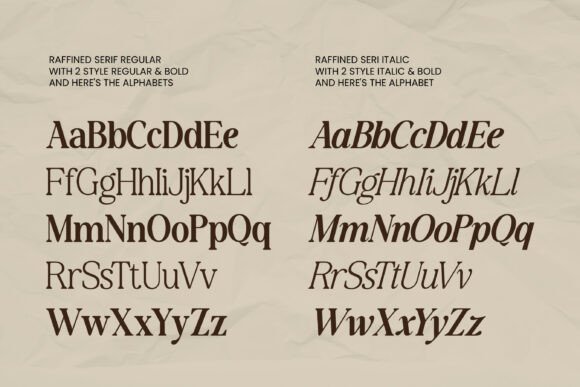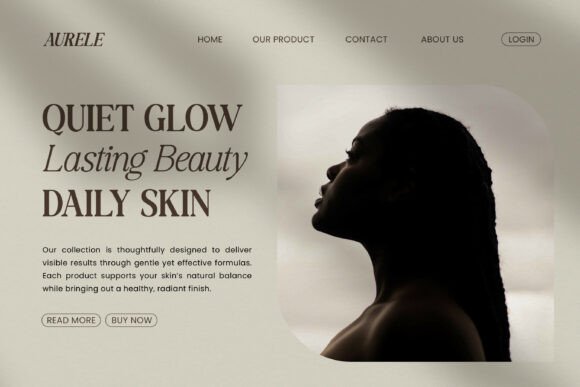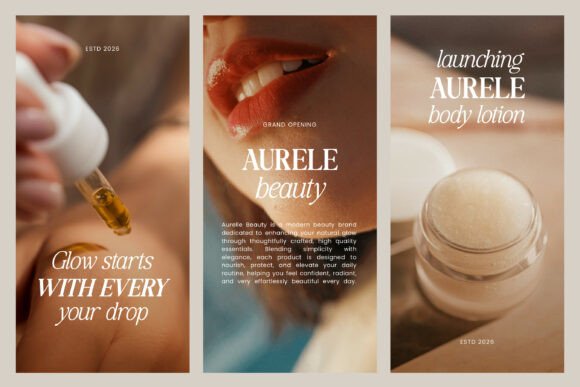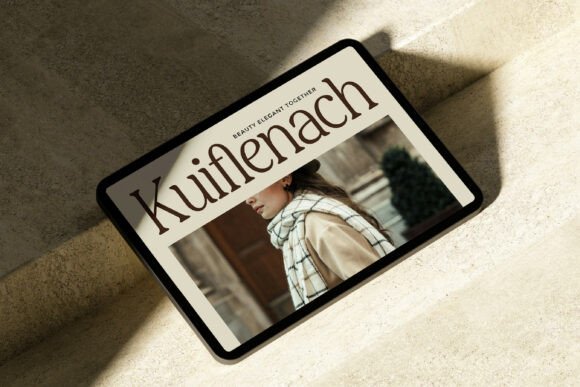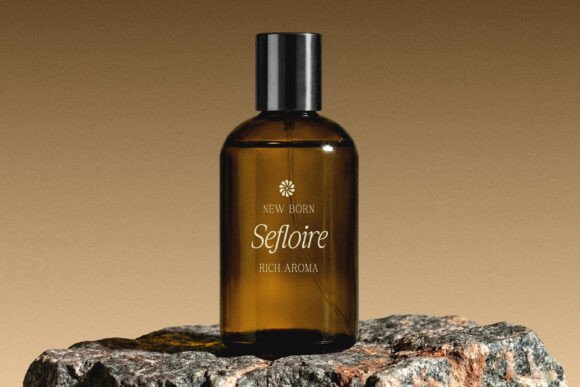
Introduction to Raffined Font
Have you ever stared at a blank page, trying to find the perfect font to bring your creative vision to life? That’s exactly what happened to me when I was working on a high-end fashion campaign. I wanted a font that exuded elegance and sophistication, but nothing seemed to fit the bill. That’s when I discovered the Raffined Font, a game-changing display serif font that changed everything.
As a designer, you’re always on the lookout for high-quality design resources that can elevate your creative project. The Raffined Font delivers, with its stunning high-contrast letterforms, graceful curves, and sharp serifs. Whether you’re working on a logo, packaging design, or editorial content, this font is sure to bring a touch of luxury and sophistication to your work.
Key Features of Raffined Font
- High-quality design for a creative project, suitable for various applications
- Supports a wide range of languages, including Latin, Cyrillic, and Greek scripts
- Unique, elegant design that adds a touch of sophistication to any creative project
Honest Review: Raffined Font
As a designer, I’m always on the lookout for high-quality design resources that can elevate my creative projects. Recently, I had the chance to work with the Raffined Font, and I’m excited to share my honest review with you.
Here’s what I loved about this font:
- ✨ The Raffined Font is incredibly versatile, making it perfect for a wide range of creative projects, from branding to publishing.
- ✨ The font’s elegant and refined design makes it perfect for any project that requires a touch of sophistication.
- ✨ I appreciated the transparent background, which made it easy to work with and customize to my needs.
- ⚠️ The font is not suitable for all types of projects, particularly those that require a bold or playful tone.
- ⚠️ I found that the font can be a bit too ornate for some designs, so it’s essential to use it sparingly.
Overall, I’m impressed with the Raffined Font’s high quality and design flexibility. While it may not be suitable for every project, it’s definitely a valuable addition to any designer’s toolkit. Plus, it’s available for free download, making it an excellent resource for designers on a budget.
The Raffined Font is suitable for a variety of designs, including logos, brochures, business cards, and social media graphics. Its transparent background makes it easy to use on any background image or color.